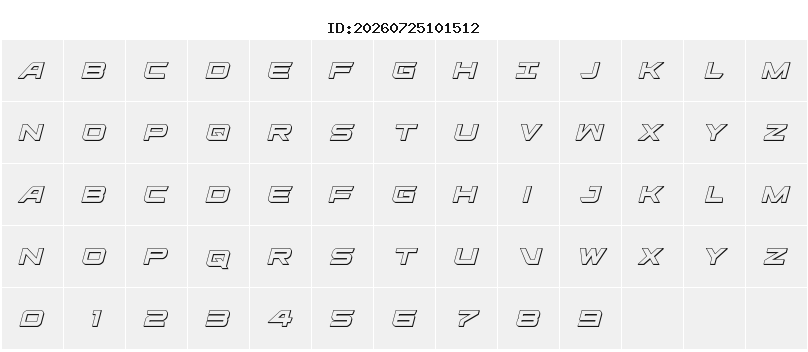
Ghost Clan 3D Italic Preview
• Font Name: Ghost Clan 3D Italic
• Full Font Name: Ghost Clan 3D Italic
About Ghost Clan 3D Italic.ttf
Ghost Clan 3D Italic.ttf is a modern, elegant sans-serif font designed for ultimate readability and visual harmony. Perfect for branding, headlines, web design, and print materials.